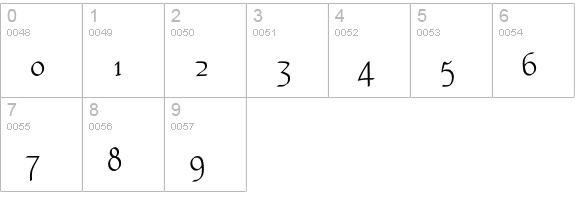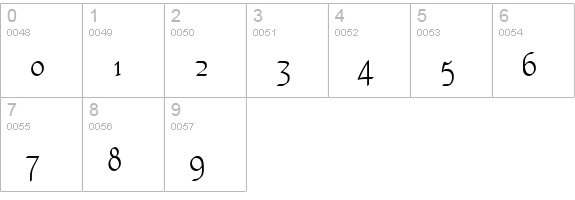
Uranus Font Details
Introducing Uranus font, a captivating and versatile typeface that will take your designs to celestial heights. With its bold and modern design, Uranus font seamlessly combines elegance and creativity, making it the perfect choice for any project. This stunning font features clean lines and unique letterforms that effortlessly command attention. Whether you're designing a logo, creating eye-catching headlines, or crafting a visually stunning poster, Uranus font delivers a professional and polished look that will leave a lasting impression. But what sets Uranus font apart from the rest? It's not just its exceptional design; it's also its availability. Uranus font is freely available to download at FontsMarket.com, allowing you to enhance your projects without breaking the bank. With Uranus font, you have the freedom to create without limitations. Whether you're a seasoned designer or just starting out on your creative journey, this font empowers you to bring your ideas to life. Its wide range of weights and styles provides endless possibilities, ensuring that your designs are as unique as the stars in the sky. So why wait? Unlock the celestial beauty of Uranus font and elevate your designs to new levels of excellence. Download this captivating font for free at FontsMarket.com and unleash your creativity today.